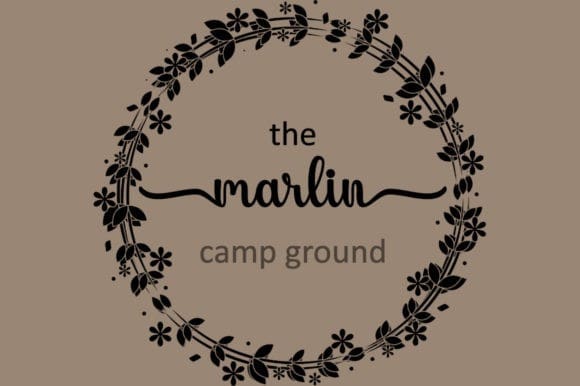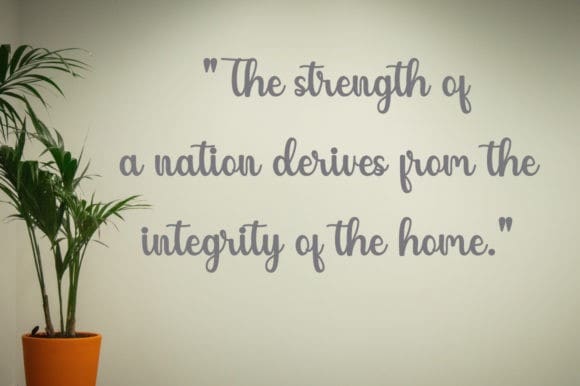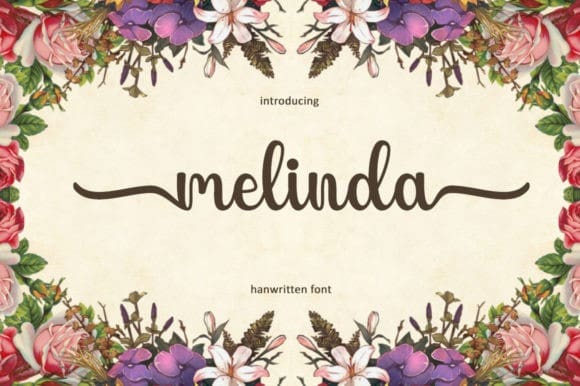
Melinda Script Typeface
Melinda Script Typeface, is a cute and sweet calligraphy typeface with characters that dance along the baseline. It has a casual, yet elegant touch. It will add a luxury spark to any design project that you wish to create. This font is PUA encoded which means you can access all glyphs and swashes with ease!